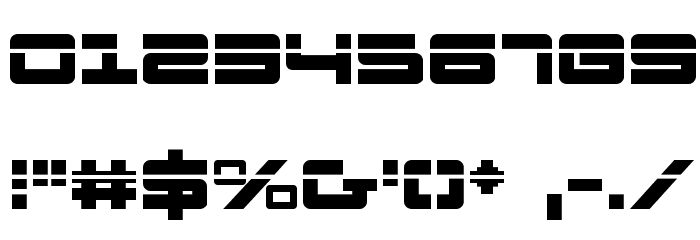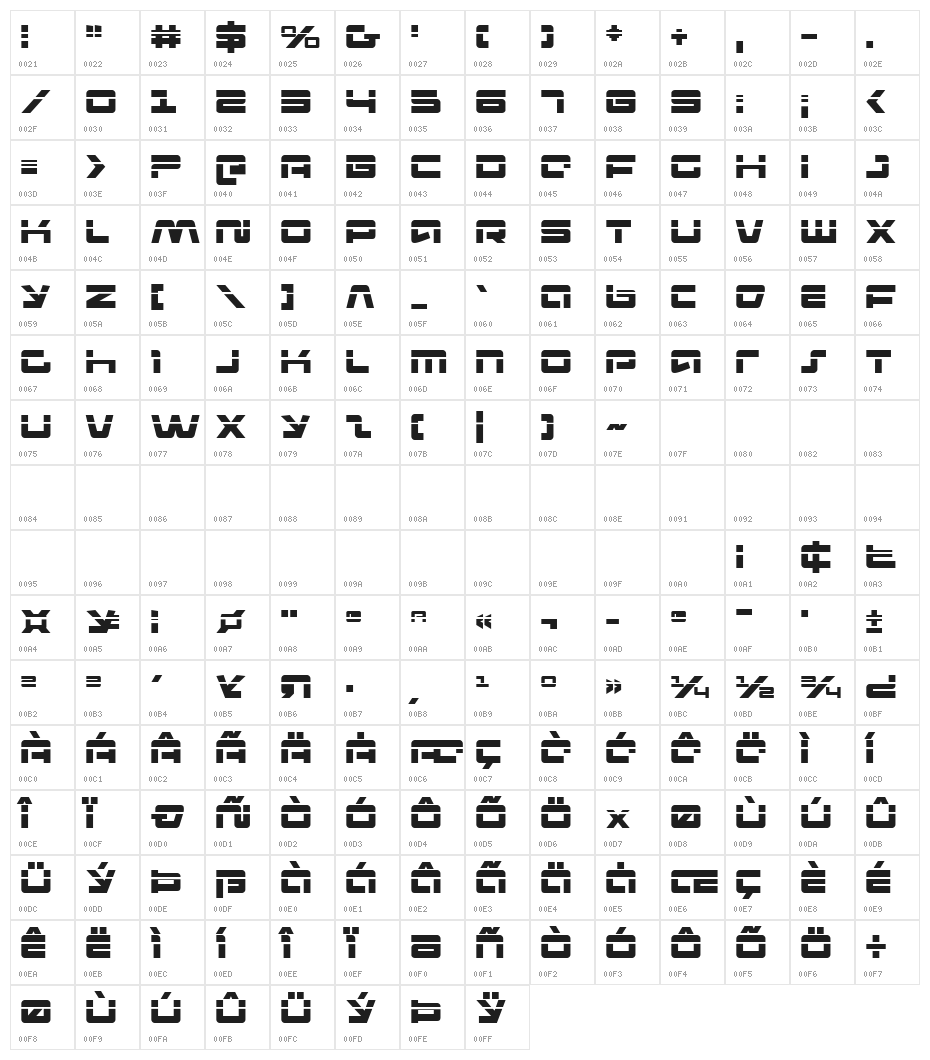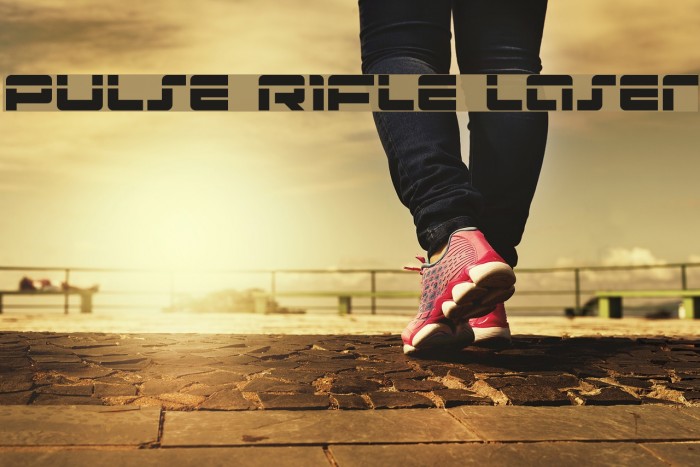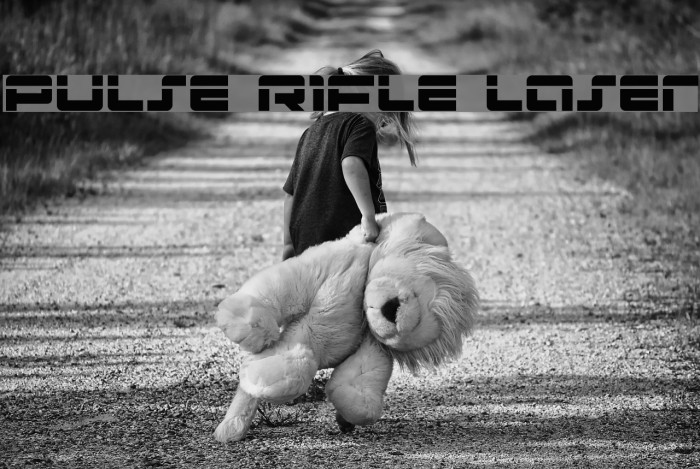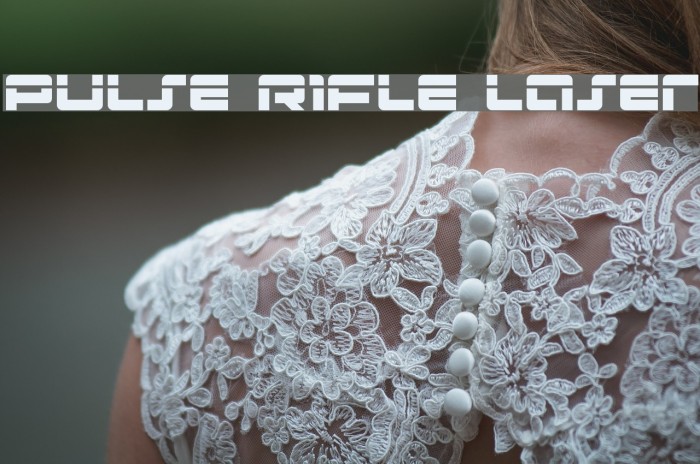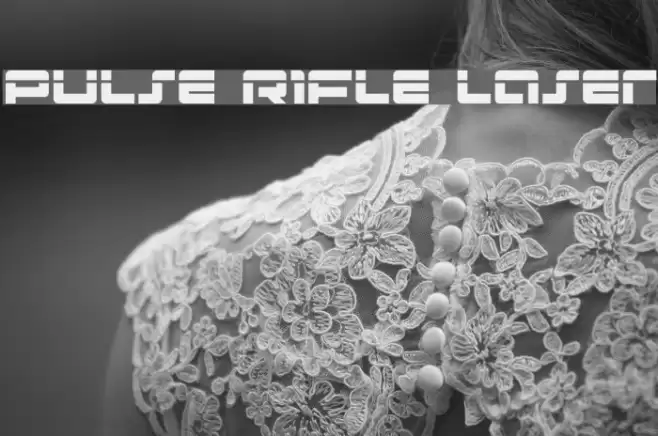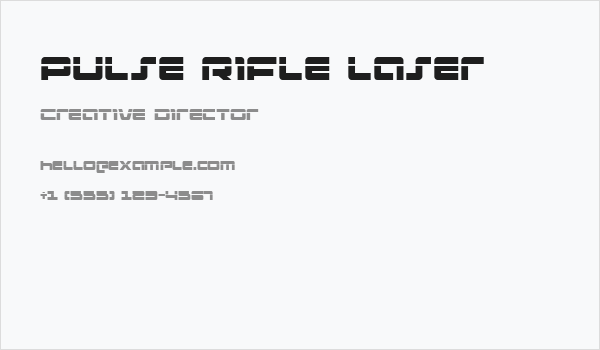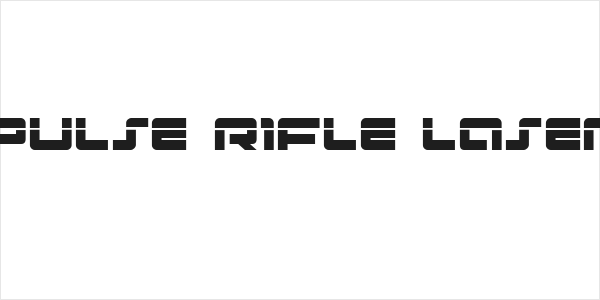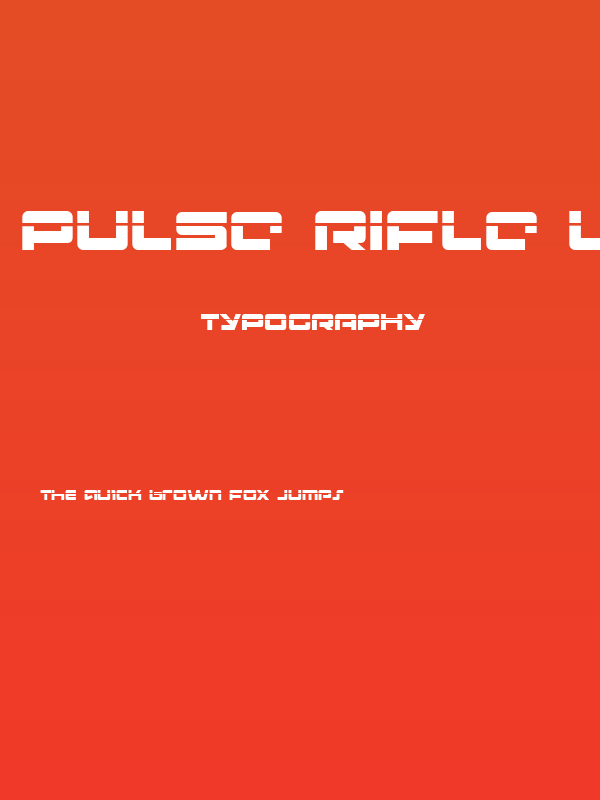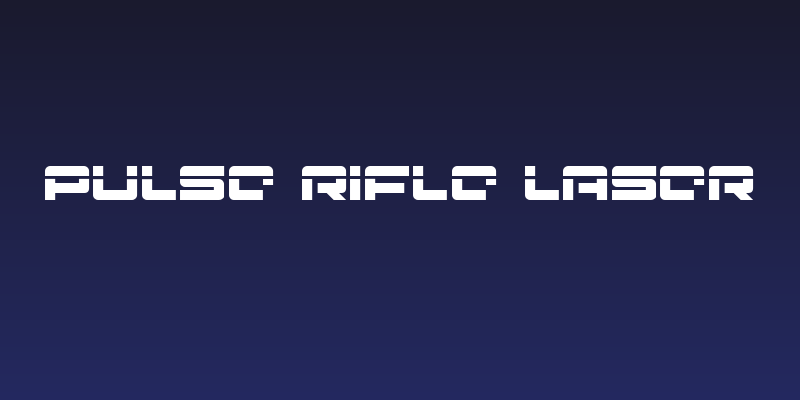
Pulse Rifle Laser Font
Pulse Rifle Laser Description
This font features a futuristic and angular design, characterized by bold, geometric shapes with sharp edges and a distinct sci-fi aesthetic. The uppercase and lowercase letters maintain a consistent style, with a blocky appearance that suggests a sense of strength and modernity. The numerals and special characters follow this theme, providing a cohesive look across all glyphs. The font's design is reminiscent of digital or technological themes, making it suitable for projects that require a modern and edgy feel.
| Proposed Projects | Ideal for sci-fi movie posters, video game titles, tech branding, and futuristic-themed designs. |